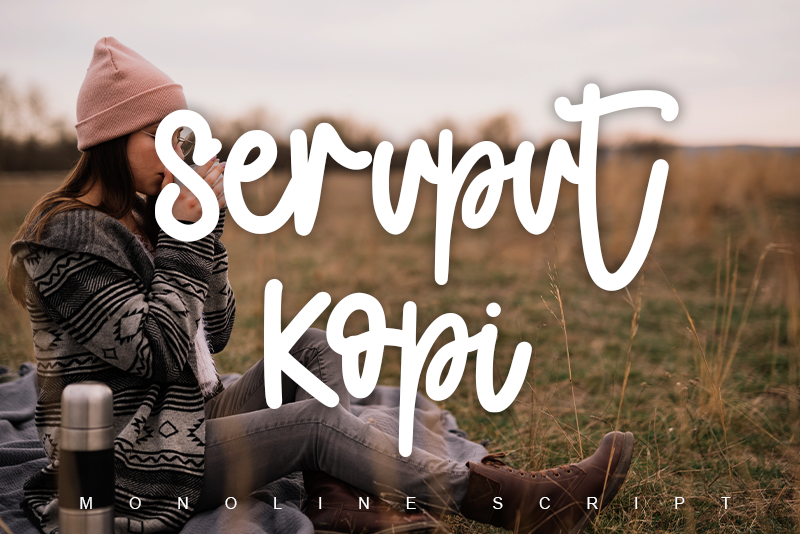
Seruput Kopi
Discover the enchanting world of modern calligraphy with this stunning monoline script font. "Classic meets Contemporary" best describes the essence of this beautiful typeface, perfect for those seeking a timeless yet friendly design solution. With its refined elegance and authentic charm, this font is ideal for creating unique and eye-catching designs that exude sophistication.
This versatile font is designed to evoke a sense of nostalgia while still feeling fresh and modern. Its monoline structure ensures crisp lines and precise letterforms, making it perfect for use in a variety of design contexts. Whether you're working on a luxurious branding project or crafting a special invitation, this font's classic style will add an air of refinement and sophistication.
As a PUA-encoded font, you'll have easy access to all the glyphs, allowing you to get creative with your typography. With its unique blend of tradition and innovation, this font is sure to become a go-to choice for designers seeking to create memorable designs that stand out from the crowd.